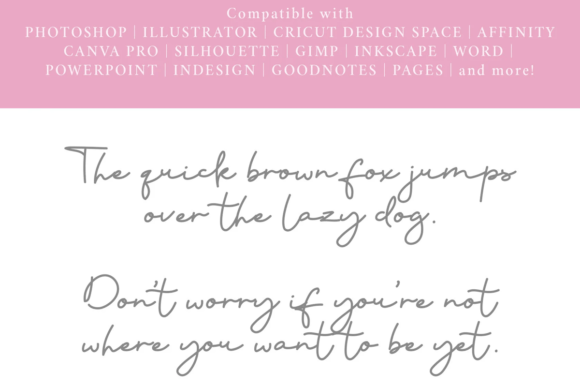
Chiharu Font
Chiharu is a monoline script font. It has a smooth, single-line style that looks like it was drawn with one continuous stroke. The letters are elegant and flowing, making it perfect for adding a touch of sophistication to your projects, such as invitations, logos, and decorative text.